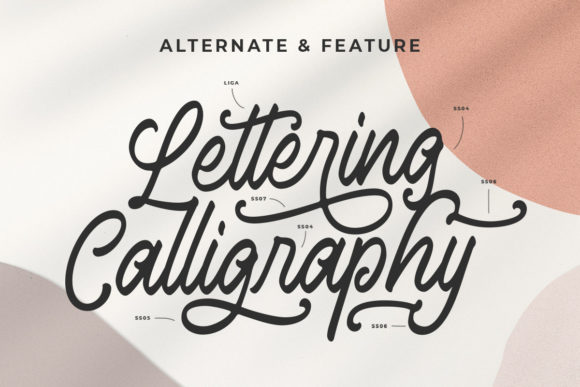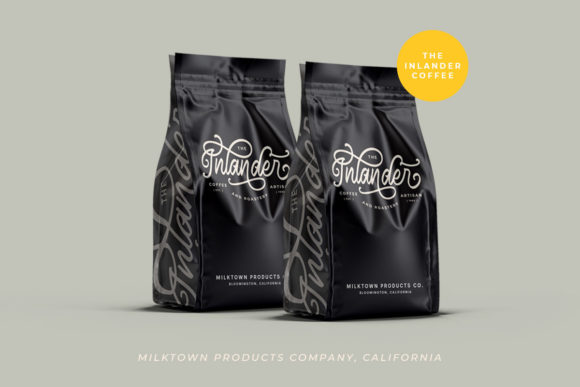
Mayhome Script Font
db-ku.com - Script & Handwritten -- Mayhome Script is a vintage and classy script based on manual calligraphy ink on a paper. This font has many swashes that allows you to create beautiful lettering instantly. Mayhome Script is PUA encoded which means you can access all of the glyphs and swashes with ease!